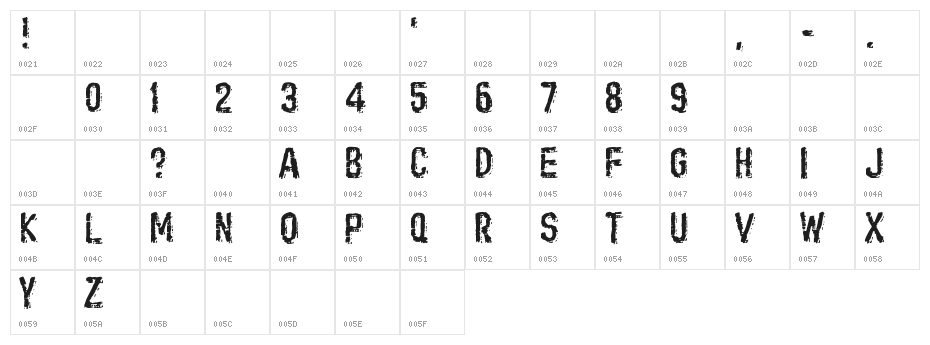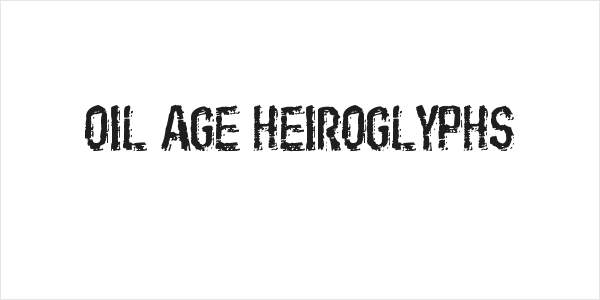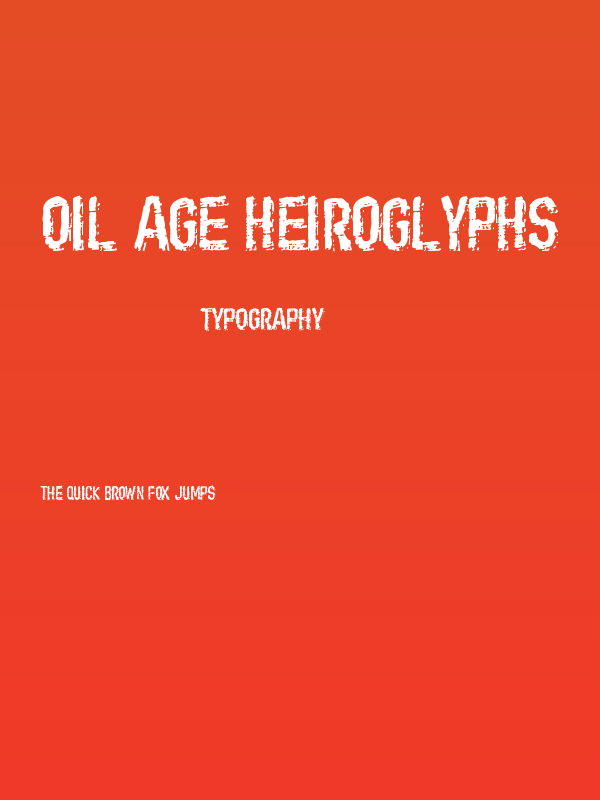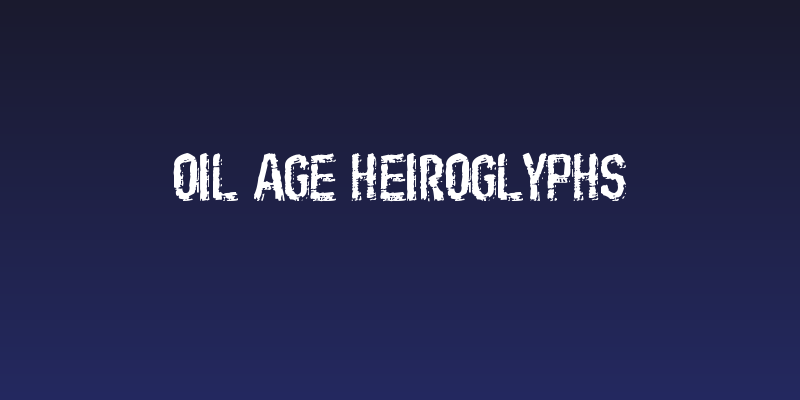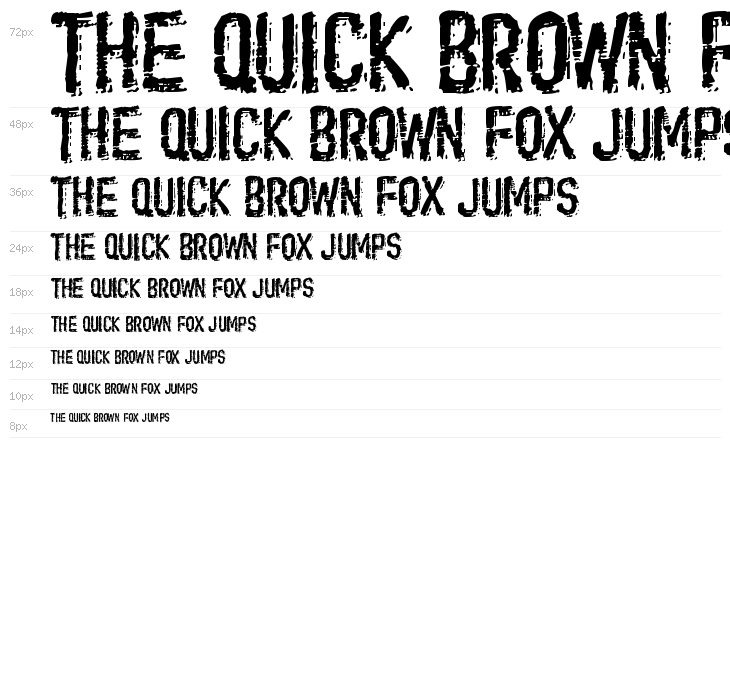
Oil Age Heiroglyphs Font
Oil Age Heiroglyphs Description
This font features a rugged, distressed appearance reminiscent of ancient hieroglyphs etched into stone. The characters are bold and heavily textured, giving them a weathered and aged look. Each letter and number appears as though it has been carved or stamped, with rough edges and irregularities that add to its unique style. The font's design is both striking and evocative, making it ideal for projects that require a sense of history or antiquity. Its bold presence ensures that it stands out, while the distressed details provide a sense of depth and character.
| Proposed Projects | Ideal for historical-themed designs, movie posters, book covers, and branding that requires a vintage or ancient look. |